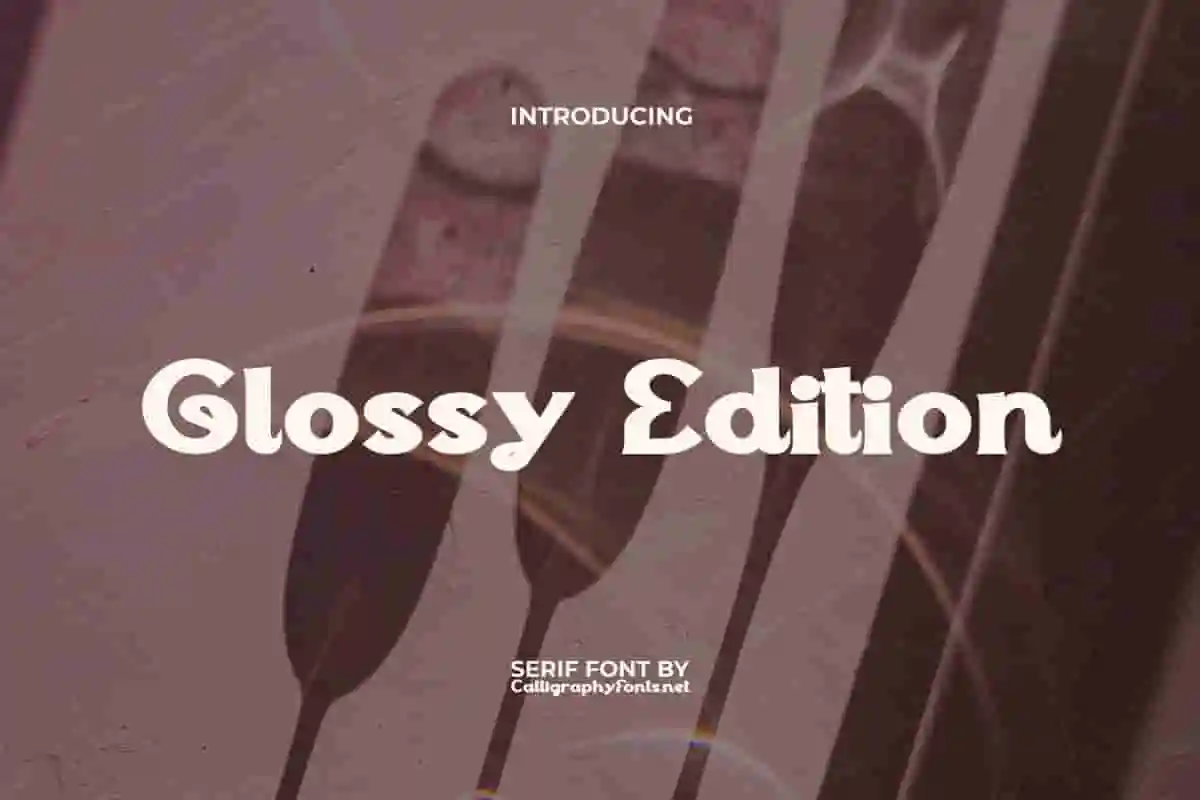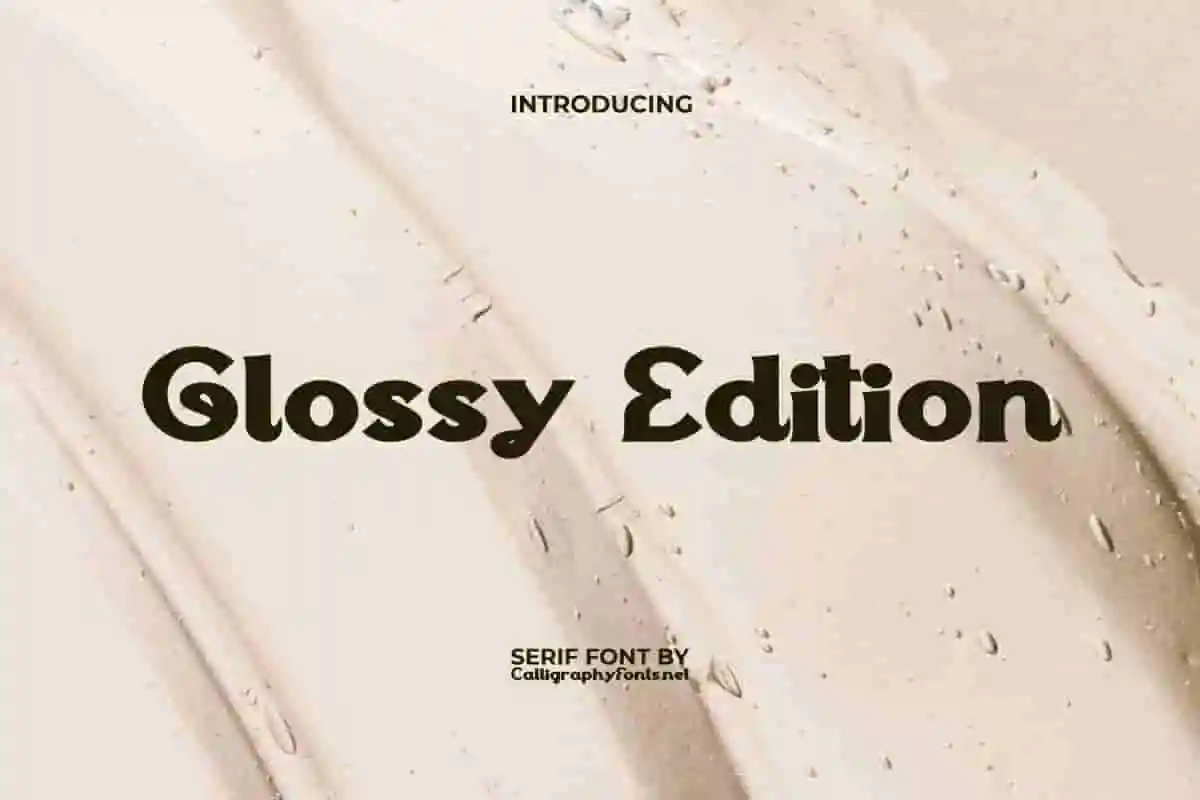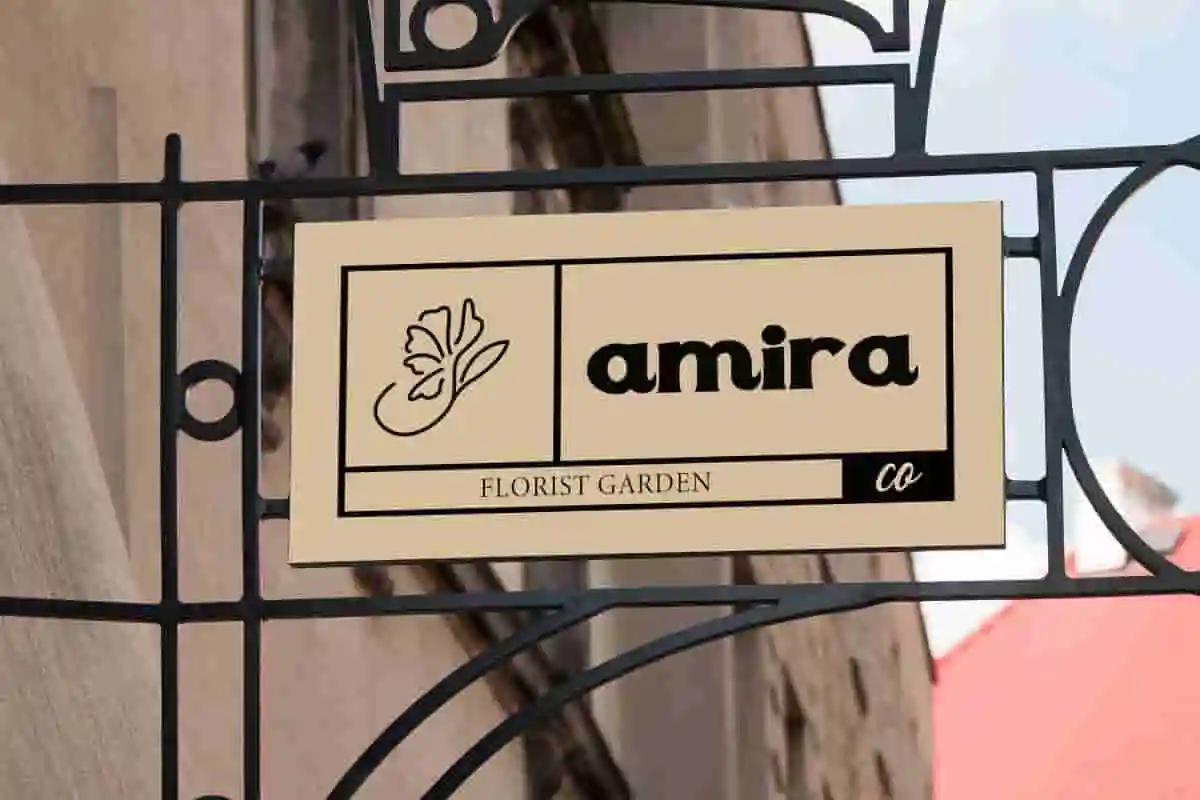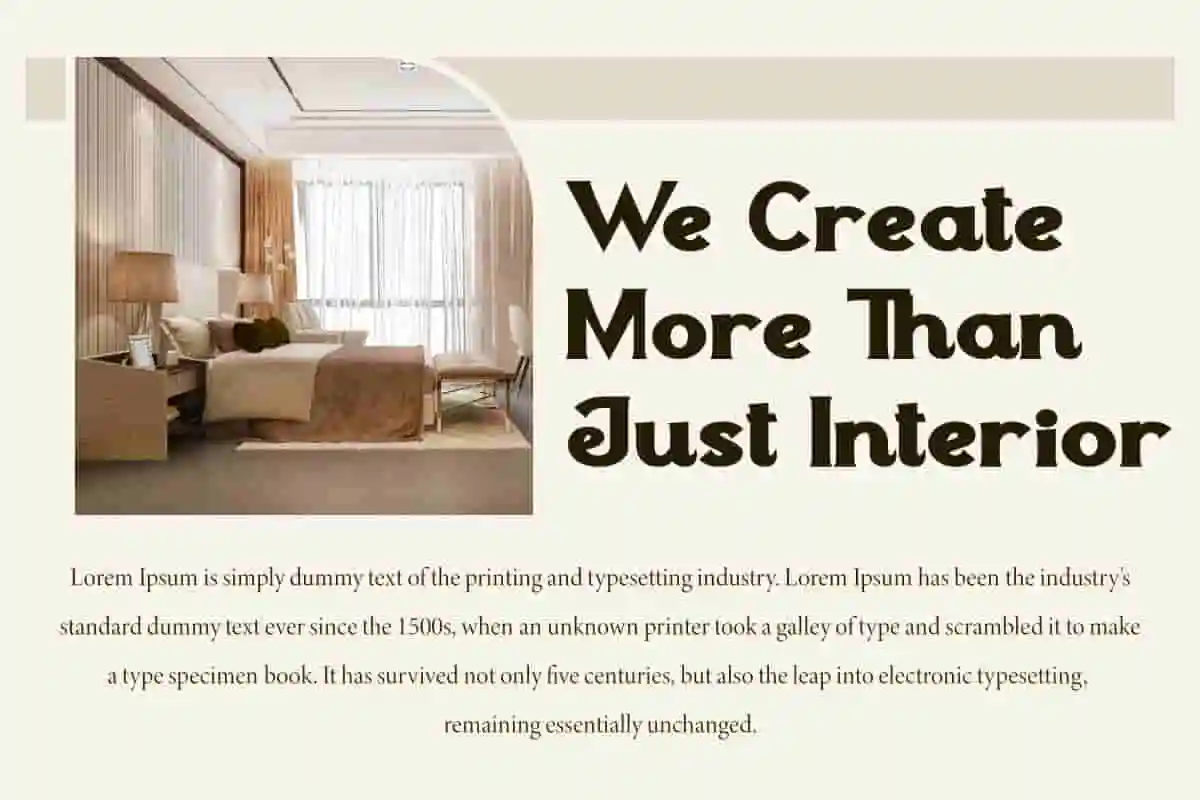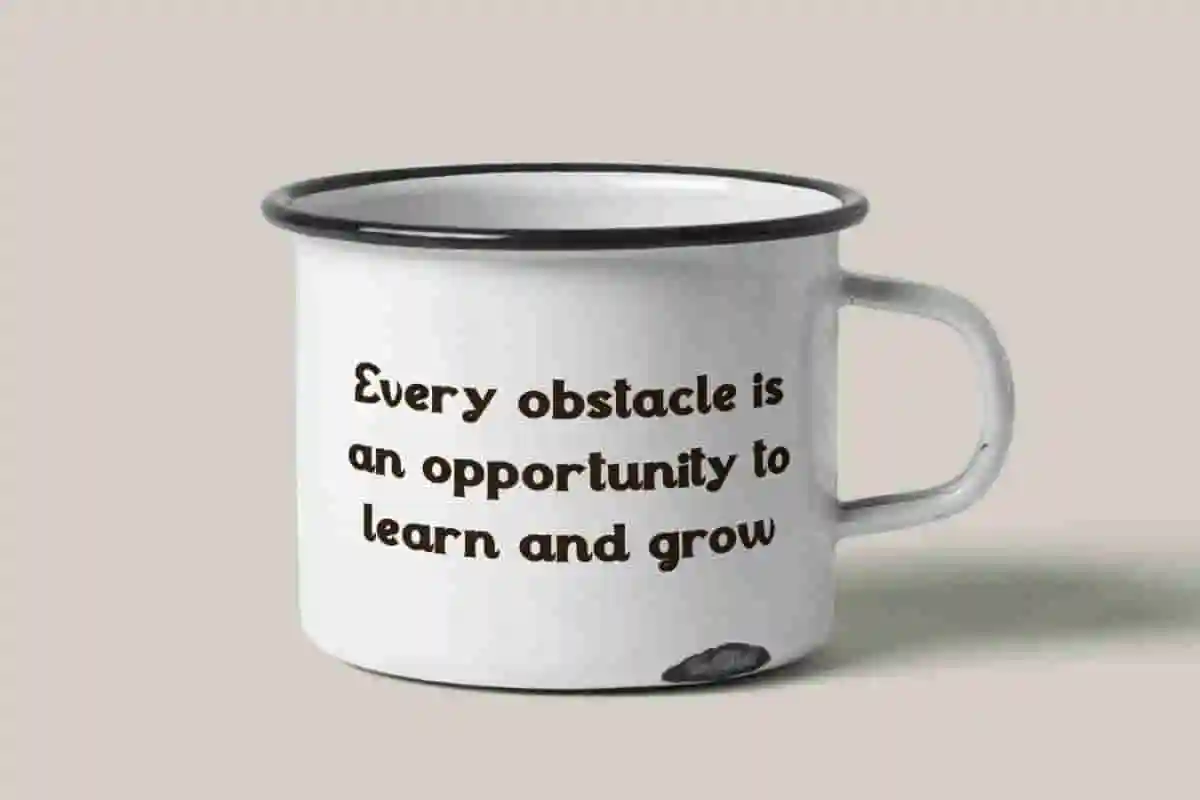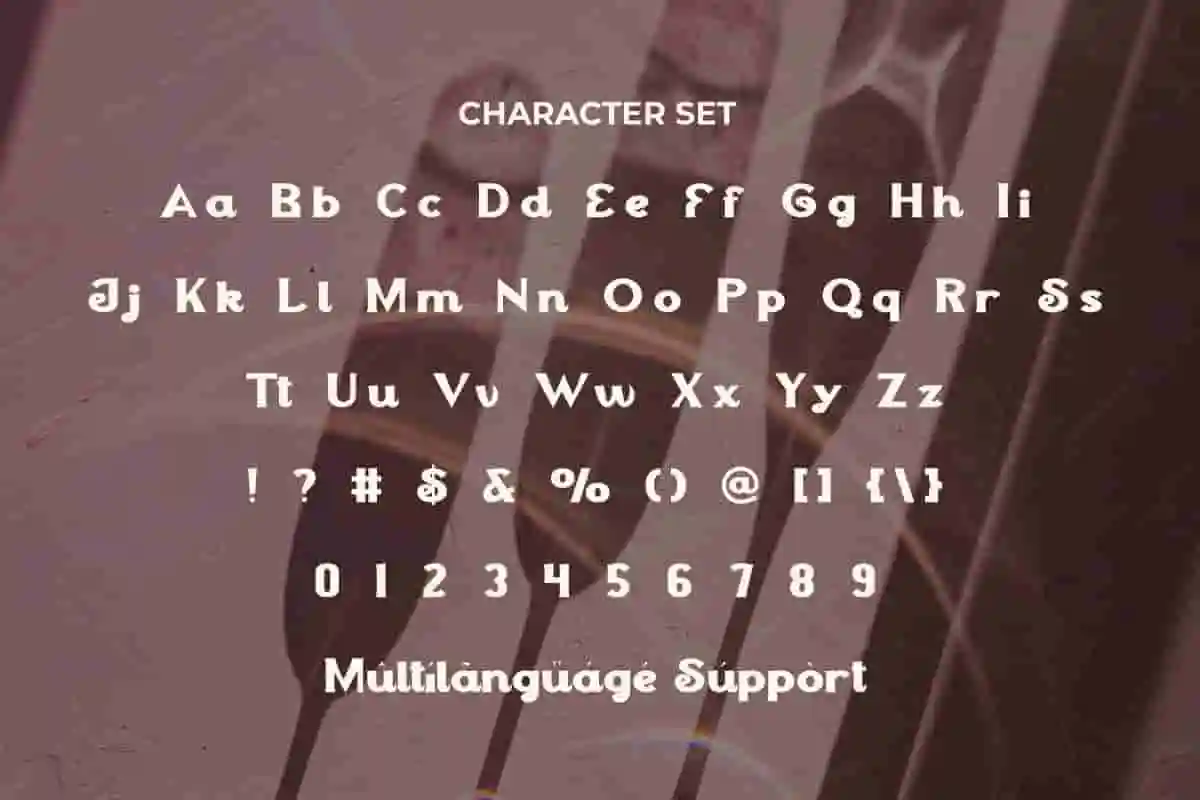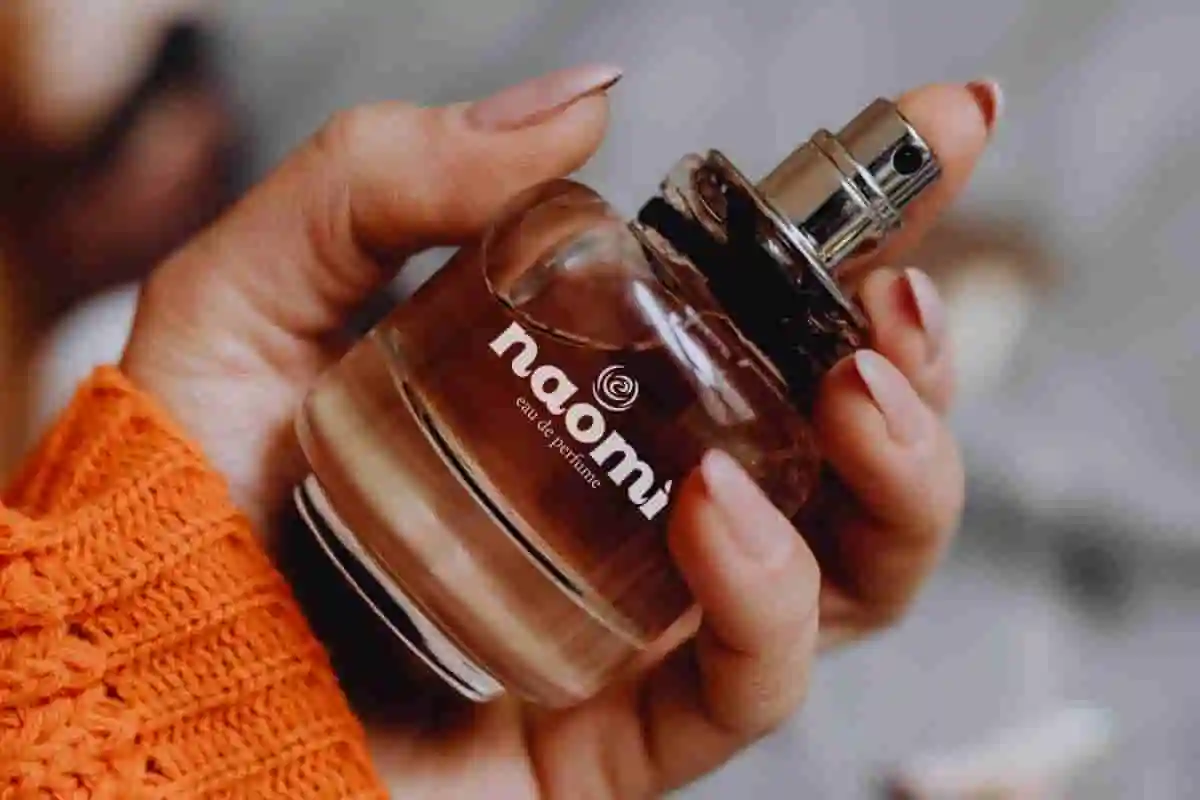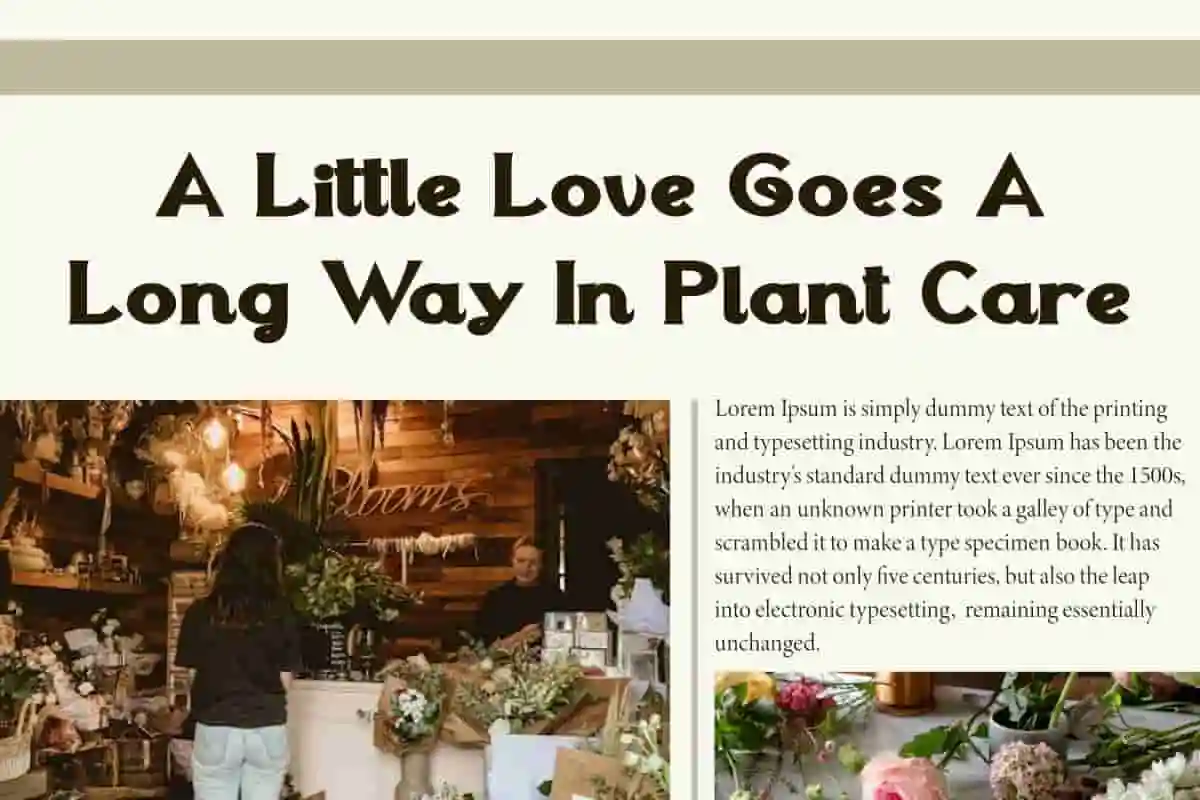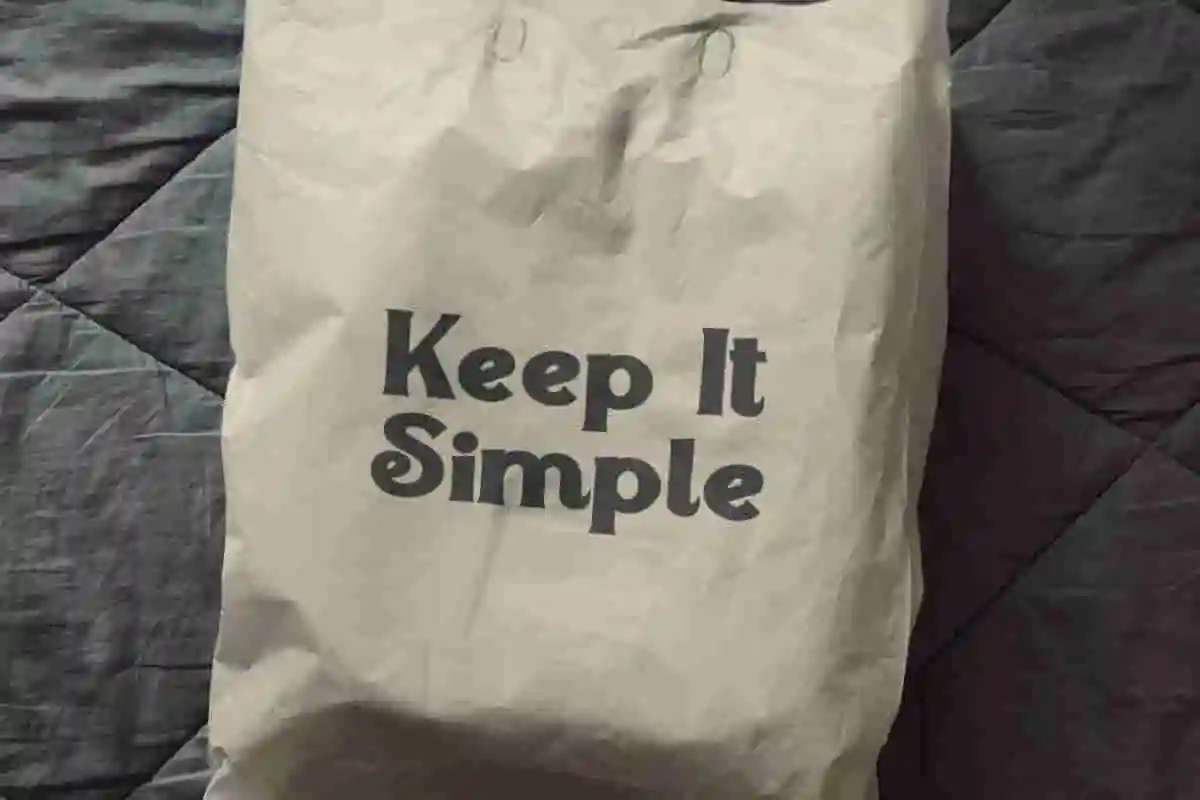
Glossy Edition Font
Glossy Edition Font is a beautiful serif display font with high contrast creating a friendly atmosphere and flexibility in any design. It perfectly represents the style full of vintage nuances
Glossy Edition Font is a classic serif font made more modern in a bold style with beautiful and compact curves in each character. It presents a typographic look that has its own characteristics in a vintage yet contemporary feel. Perfect for advertising, bouquet, florist, gardener, graphic design, home furniture, interior design, perfume store, printing, web designer, and much more.
If you want your designs to shine with confidence and style, look no further than Glossy Edition Display Font. This bold and modern display typeface is crafted to make a powerful visual statement, perfect for projects that demand attention and creativity.
With its stylish letterforms, sharp details, and contemporary design, Glossy Edition Display Font is ideal for logos, posters, product packaging, magazine covers, social media graphics, and advertising campaigns. Every curve and edge is designed to combine strength with elegance, giving your typography a polished and professional look.
In today’s competitive creative landscape, your font choice is the key to standing out. Glossy Edition Display Font isn’t just a typeface—it’s a creative tool that transforms ordinary designs into dynamic works of art. Its glossy and modern look makes it especially suited for fashion, lifestyle, beauty, and creative branding projects.
Whether you’re designing a bold headline, a trendy product label, or a powerful promotional poster, Glossy Edition Display Font provides the impact you need with a touch of sophistication.
Glossy Edition Display Font is a retro bold serif display that combines vintage charm and modern style making this typeface very impressive for anyone who needs a strong and confident serif. Use this for banner, billboard, blog, covers, custom mug, heading, headline, labels, logos, mockup, packaging, poster, printing, quotes, signage, stickers, template, title, website, and more.